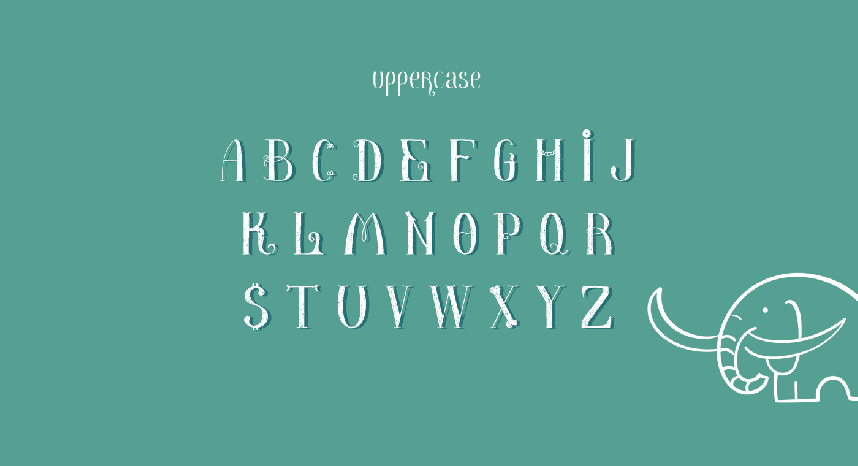
Monster Regular — Free Font
It was great, it was my initial feeling, it’s a font style handmade. Introducing Monster Regular – Free Font! Monster is designed and shared for free by Nikita Kita. This is a font designed entirely handmade, and neat editing, look at it very closely, and lovely. It’s suitable for you wedding cards, children’s books, or more …